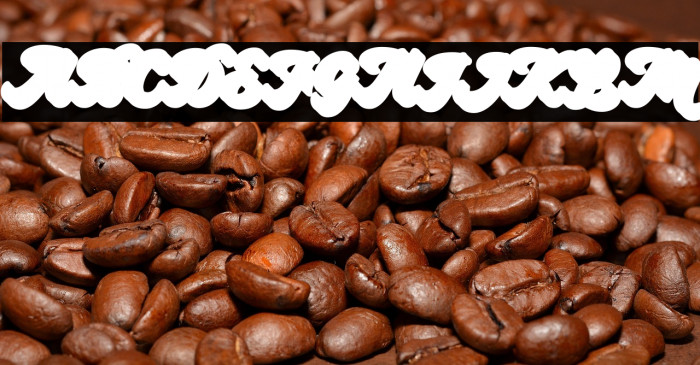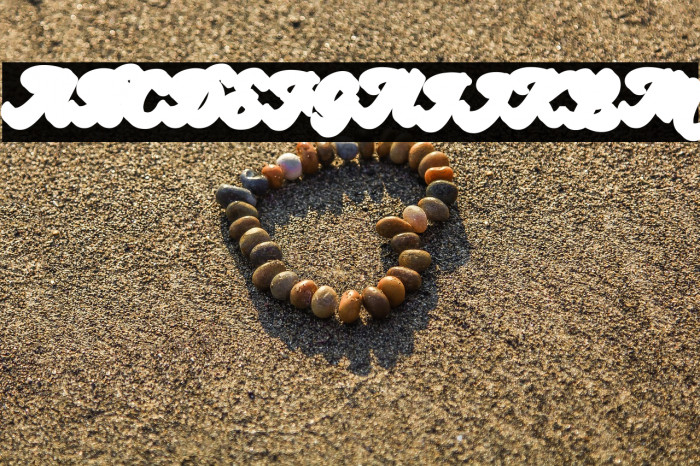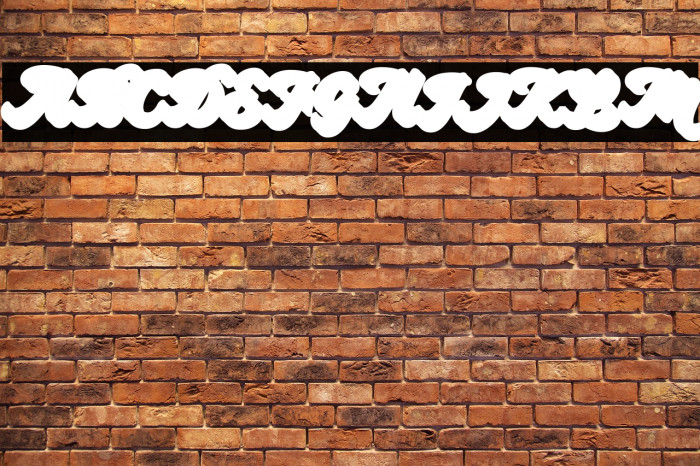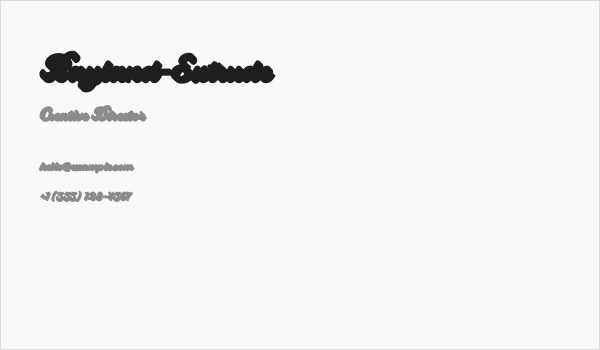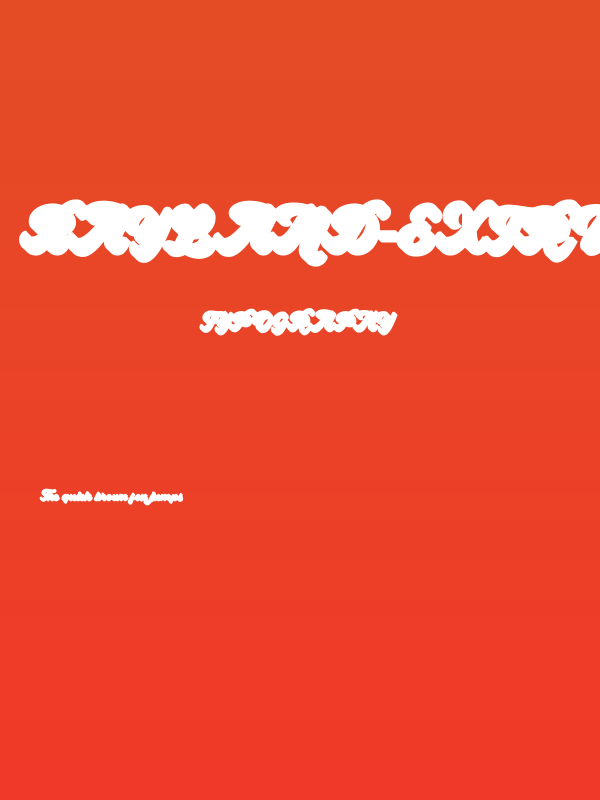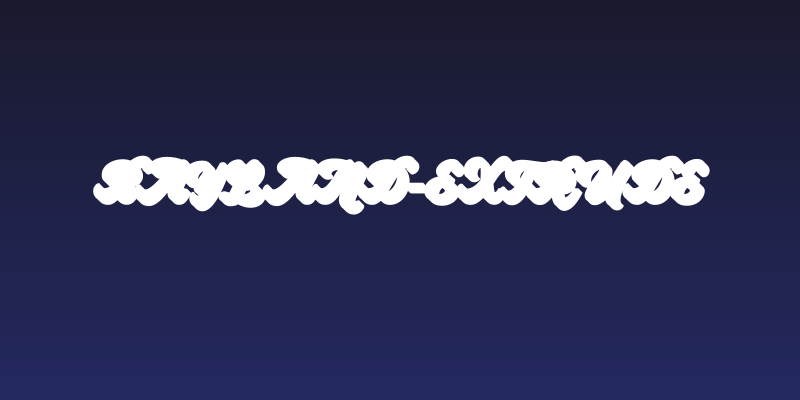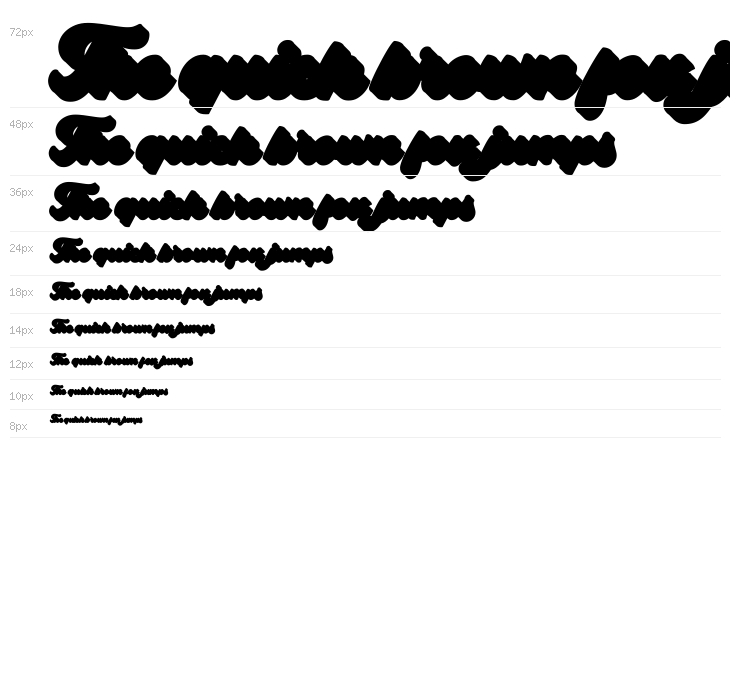
Bayland-Extrude Font
Bayland-Extrude Description
This font features a bold and playful script style with a strong, extruded 3D effect. The characters are interconnected, creating a flowing, continuous appearance. The thick strokes and rounded edges give it a friendly and approachable feel, while the shadowing adds depth and dimension. This font is highly decorative, making it ideal for eye-catching designs. The uppercase and lowercase letters maintain a consistent style, and the numerals and special characters are equally bold and expressive. Overall, this font exudes a sense of fun and creativity, perfect for projects that require a standout, artistic touch.
| Use Case | Logos, Posters, Creative projects |
| Proposed Projects | Ideal for posters, logos, branding, and any creative project that requires a bold, artistic touch. |